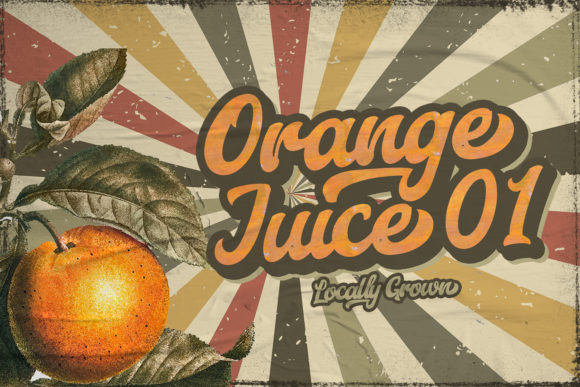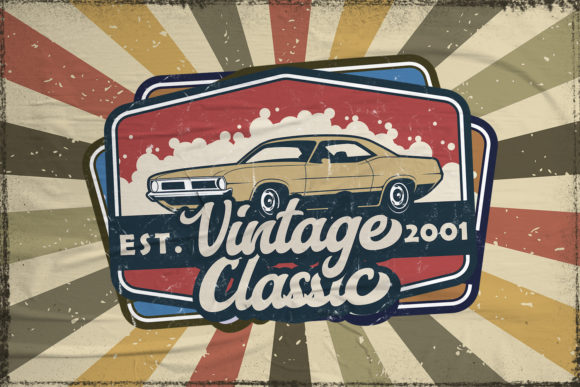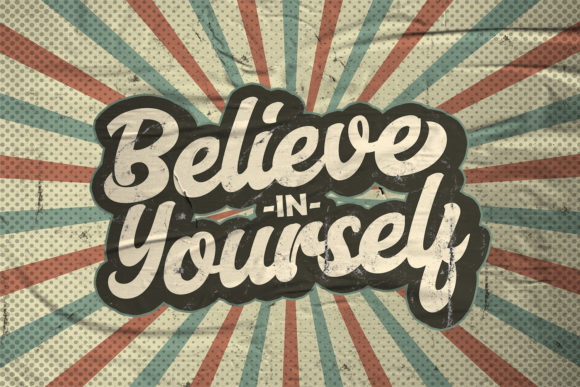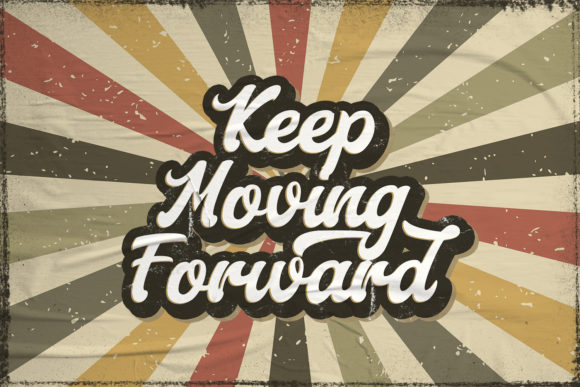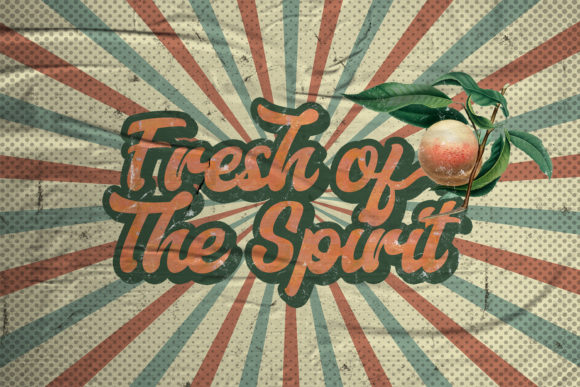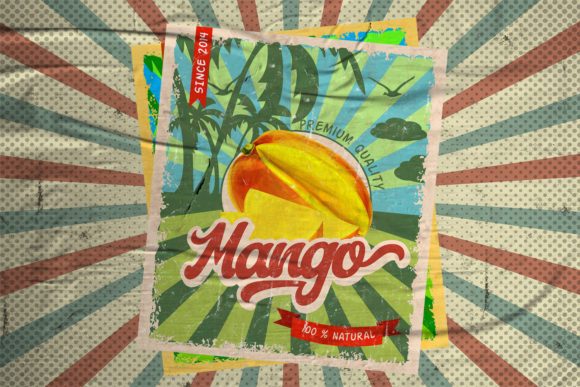
Aerillyo Font: The Cute and Bold Script Font for Your Creative Projects
Are you a designer or crafter looking for a font that can add a touch of personality to your creative projects? Look no further than Aerillyo Font! This adorable script font is perfect for anyone who wants to add a vintage and retro touch to their branding, stationery, quotes, and more.
What Makes Aerillyo Font So Special?
Aerillyo Font is a one-of-a-kind script font that is curved and rounded in every single touch. Its unique design makes it stand out from other fonts, and its bold and cute style is sure to grab attention. Whether you’re creating a logo, a poster, or a social media graphic, Aerillyo Font is the perfect choice.
The Vintage and Retro Style of Aerillyo Font
One of the things that sets Aerillyo Font apart is its vintage and retro style. This font is perfect for anyone who wants to add a touch of nostalgia to their designs. The curved and rounded lines of Aerillyo Font give it a soft and feminine touch, making it perfect for branding, stationery, and other creative projects.
Uses for Aerillyo Font
Aerillyo Font is incredibly versatile, and can be used for a wide range of creative projects. Here are just a few ideas to get you started:
• Branding: Use Aerillyo Font to create a unique and memorable logo for your business or brand.
• Stationery: Add a touch of personality to your stationery with Aerillyo Font. Use it for invitations, greeting cards, and more.
• Quotes: Make your quotes stand out with Aerillyo Font. This font is perfect for creating inspirational quotes, motivational quotes, and more.
• Social Media Graphics: Use Aerillyo Font to create eye-catching social media graphics that will grab attention.
• Posters: Create stunning posters with Aerillyo Font. This font is perfect for movie posters, event posters, and more.
Why Designers and Crafters Love Aerillyo Font
Designers and crafters love Aerillyo Font for many reasons. Here are just a few:
• Unique Design: Aerillyo Font has a unique design that sets it apart from other fonts.
• Easy to Read: Despite its bold and curly design, Aerillyo Font is easy to read, making it perfect for body text and headlines.
• Versatile: Aerillyo Font can be used for a wide range of creative projects, from branding to stationery to social media graphics.
• High-Quality: Aerillyo Font is a high-quality font that is designed to look great on any device or platform.
How to Use Aerillyo Font in Your Designs
Using Aerillyo Font in your designs is easy! Here are just a few tips to get you started:
• Pair it with Other Fonts: Aerillyo Font looks great when paired with other fonts. Try pairing it with a clean sans-serif font for a bold and modern look.
• Experiment with Colors: Aerillyo Font looks great in a variety of colors. Try experimenting with different colors to find the perfect look for your design.
• Use it for Headlines: Aerillyo Font is perfect for headlines and titles. Use it to add a touch of personality to your designs.
In conclusion, Aerillyo Font is a cute and bold script font that is perfect for designers and crafters. Its unique design, vintage and retro style, and versatility make it a great choice for a wide range of creative projects. Whether you’re creating a logo, a poster, or a social media graphic, Aerillyo Font is sure to add a touch of personality to your designs.